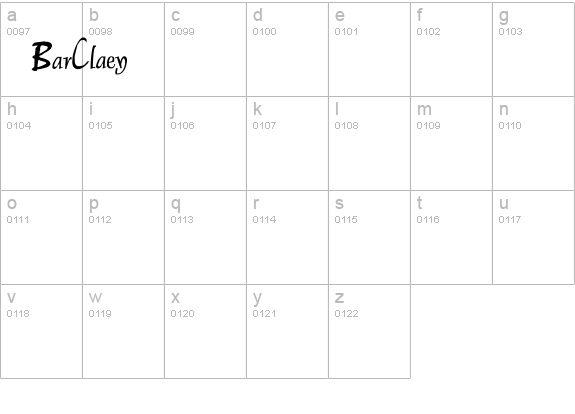
BarClaey Label Font Details
Introducing BarClaey Label font, a stylish and versatile typeface that exudes elegance and sophistication. This font features a unique blend of modern and vintage elements, making it perfect for a wide range of design projects. With its clean lines and distinctive character shapes, BarClaey Label font adds a touch of class to any design. The best part? BarClaey Label font is available for free download at FontsMarket.com. This means that you can easily access this stunning font and use it in your projects without any cost. Whether you're designing a logo, poster, invitation, or any other creative project, BarClaey Label font is sure to make a lasting impression. Don't miss out on the opportunity to enhance your designs with this beautiful and free font. Download BarClaey Label font today and take your projects to the next level!